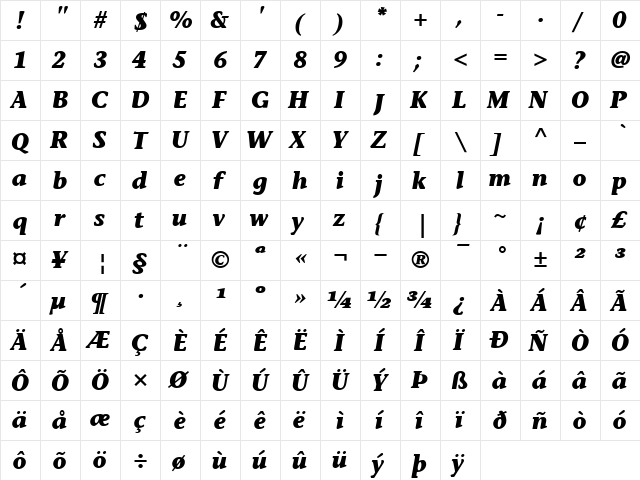
ITCStoneInformal BoldItalic Font Preview
Design Context for ITCStoneInformal Typeface
ITCStoneInformal takes a measured approach to typography — its balanced proportions and neutral character make it a reliable workhorse for both digital and print work. The dynamic lean of this cut emphasises speed and emphasis in any layout. The heavy weight commands attention and anchors typographic hierarchies.
Pro Tip: Try ITCStoneInformal for annotation and caption copy alongside an upright companion — the contrast in angle creates a dynamic but ordered typographic system.